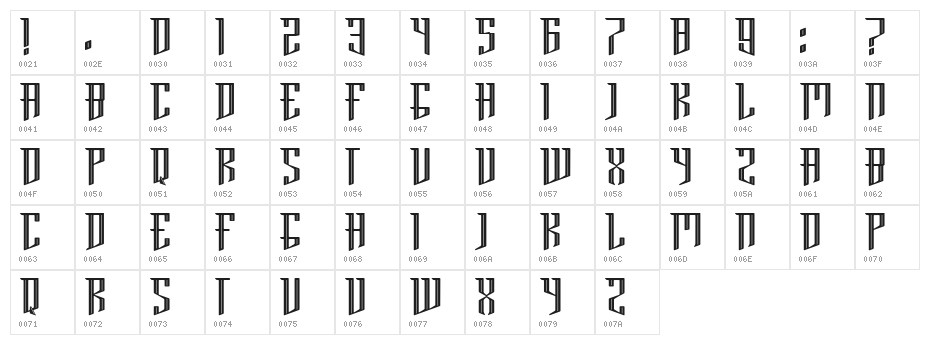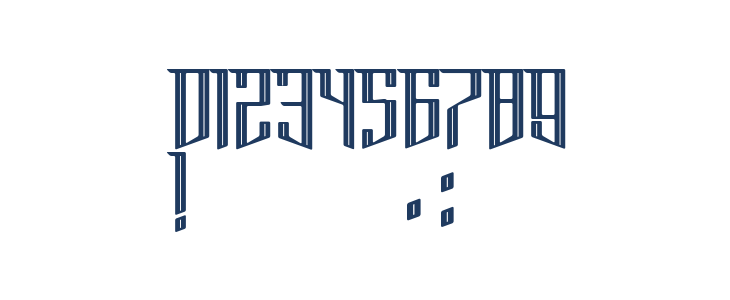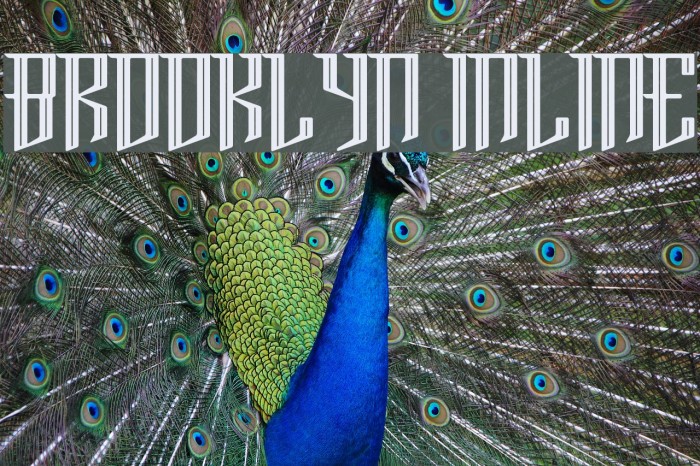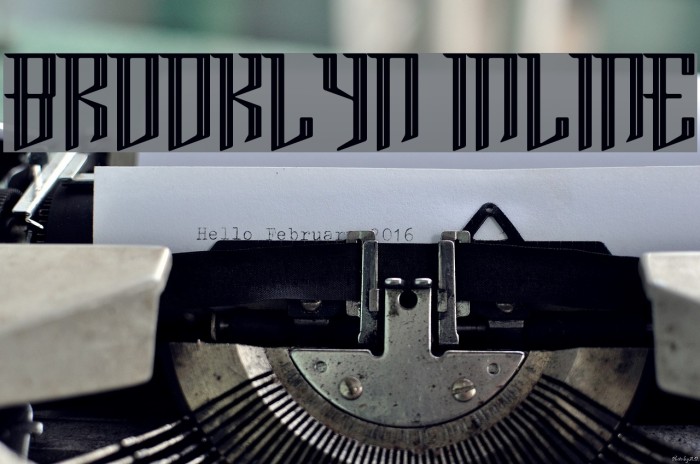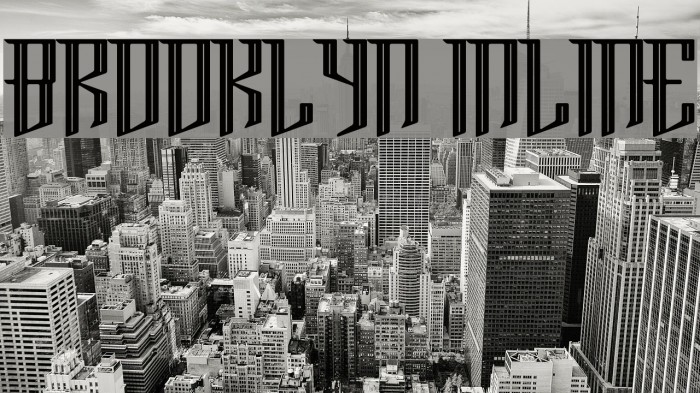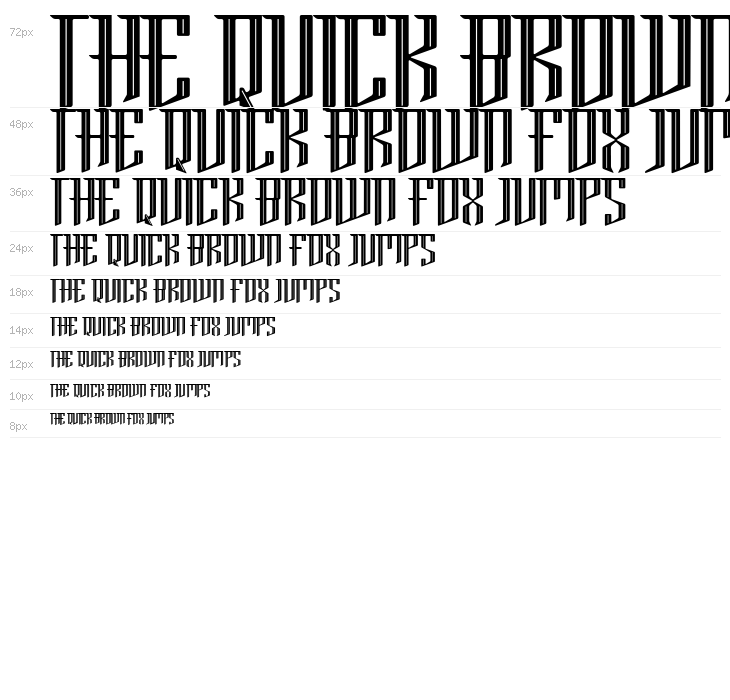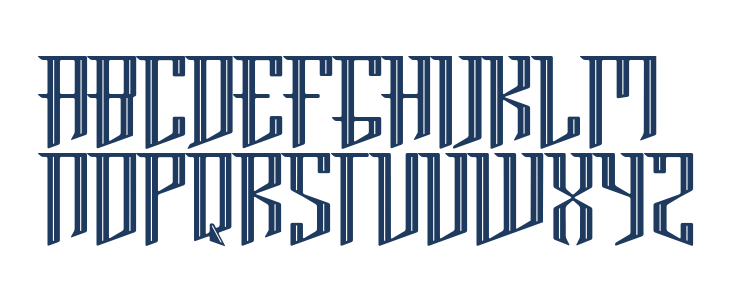
Brooklyn Inline Font
Brooklyn Inline Description
This font features a bold and striking design with a distinct inline style that creates a sense of depth and dimension. The characters are tall and narrow, with sharp angles and clean lines that give it a modern, edgy appearance. The uppercase letters are particularly prominent, showcasing a unique geometric structure that is both eye-catching and sophisticated. The numbers and special characters maintain the same stylistic elements, ensuring consistency across all glyphs. This font is ideal for projects that require a strong visual impact, such as branding, posters, and headlines.
| Proposed Projects | Ideal for branding, posters, headlines, and any design requiring a strong visual impact. |